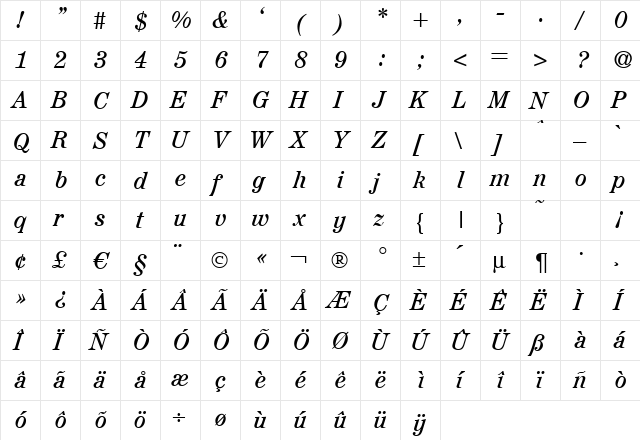
A850-Roman Italic
Design Context for A850-Roman Typeface
A850-Roman takes a measured approach to typography — its balanced proportions and neutral character make it a reliable workhorse for both digital and print work. The dynamic lean of this cut emphasises speed and emphasis in any layout.
Pro Tip: Use A850-Roman for emphasis, pull quotes, and subheadings where its slanted energy can add rhythm to the layout.